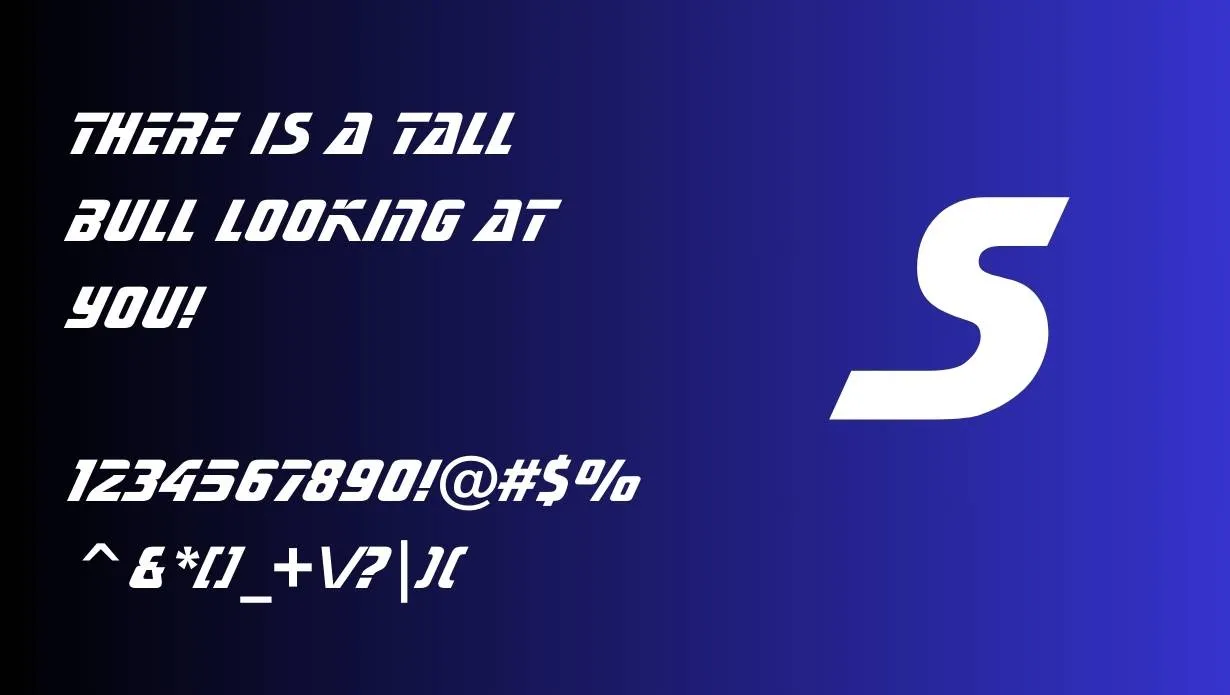
Sonic Extra Bold Font is similar to raising your voice with large letters to attract attention. It is robust and impactful, ideal for making posters or headlines stand out.
View of Sonic Extra Bold Font
| Designer | Bitstream |
| Style | Display |